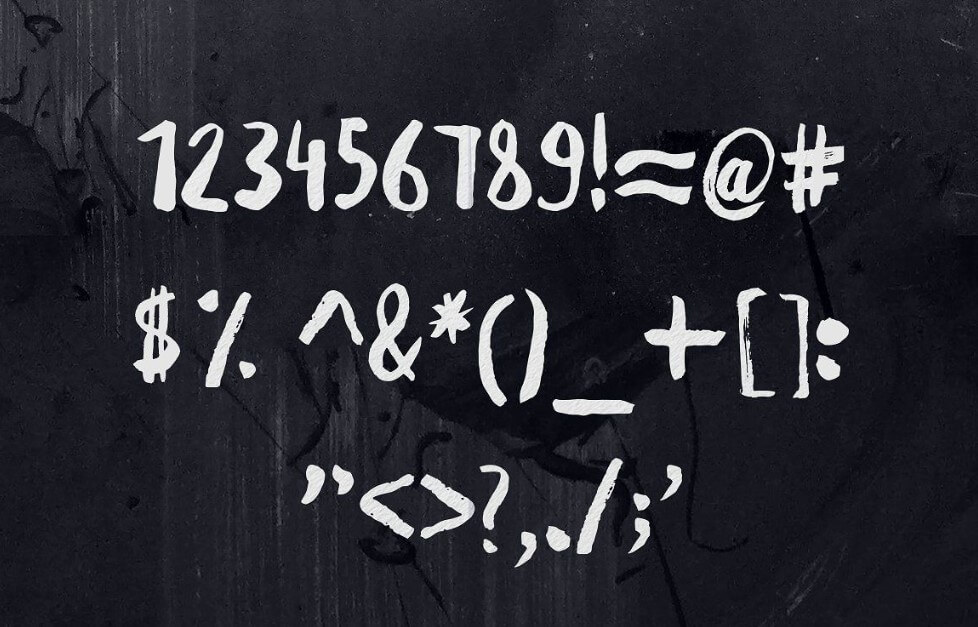
Besom Brush Font
Besom Brush Font is a fashionable brush script font offering a rough textured design. This font includes uppercase and lowercase letters with herbal designs.